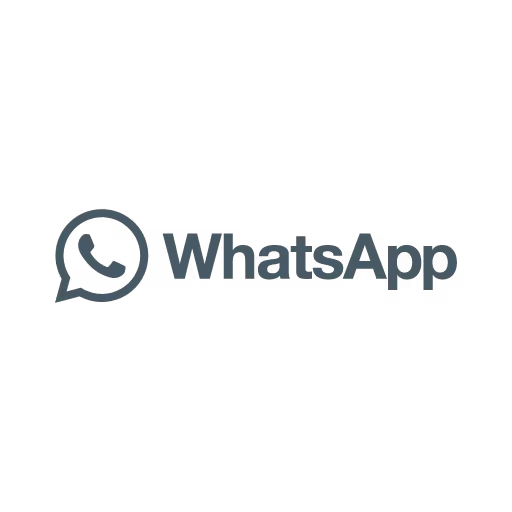
Whatsapp Font
Helvetica®
The "Whatsapp Font" logo is based on this font.
The WhatsApp logo font is Helvetica Neue. WhatsApp Messenger is a cross platform messaging and Voice over IP service that allows users to send text messages, make voice and video calls, and share media. Owned by Facebook, Inc., WhatsApp has become one of the most widely used messaging applications worldwide. The WhatsApp logo font, Helvetica Neue, is a clean neo grotesque sans serif typeface known for its balanced proportions and strong legibility. The simple, modern letterforms of the WhatsApp logo font reinforce clarity, accessibility, and global communication.